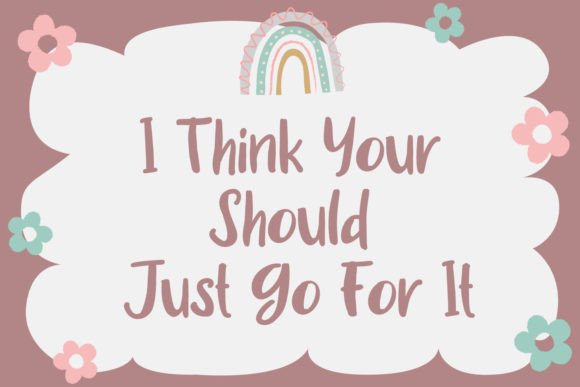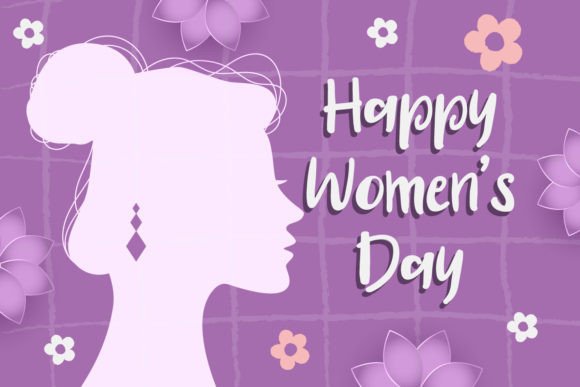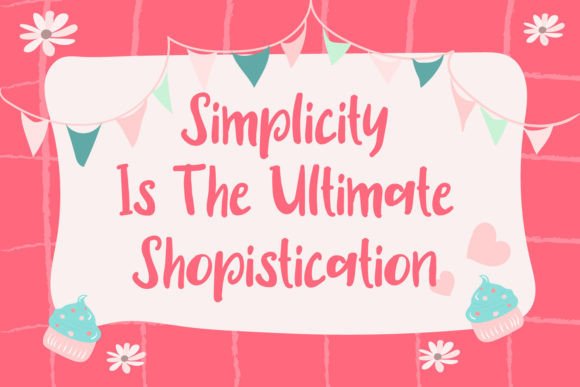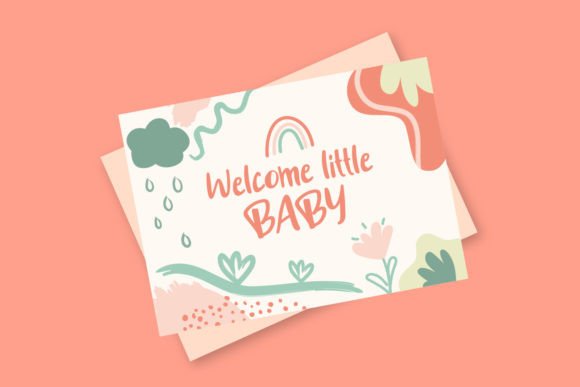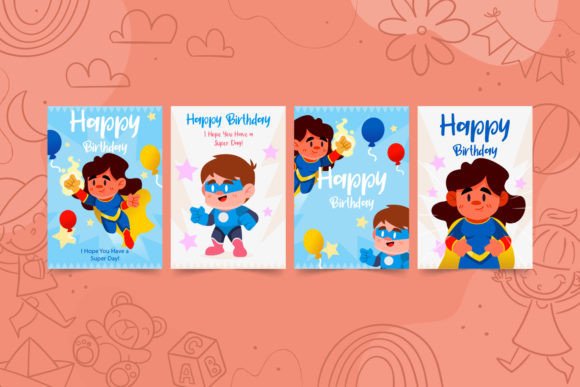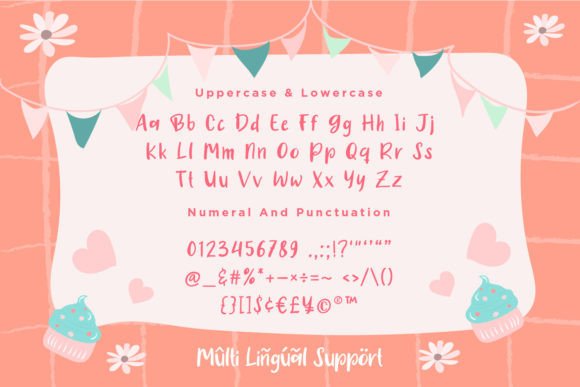
Browserian Font – Free Download
Introduction to Browserian Font
Browserian is a charming and delicate work of art that captures the heart with its graceful and flowing design.
Its soft curves and gentle strokes create an aura of romance and whimsy, evoking a sense of beauty and elegance This exquisite font adds a touch of sweetness and charm to any project.